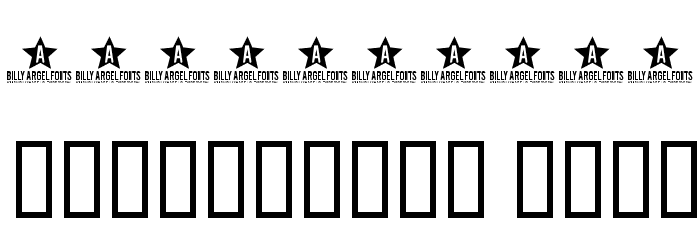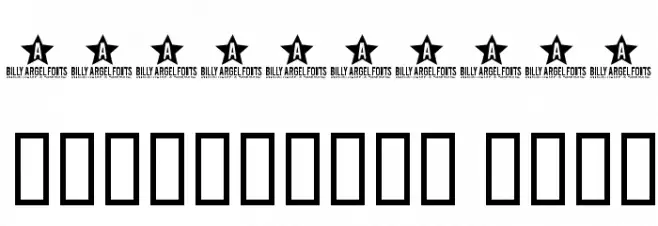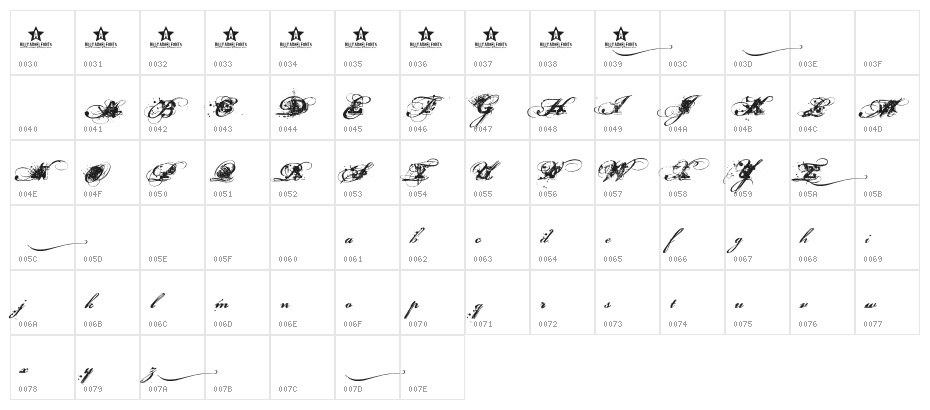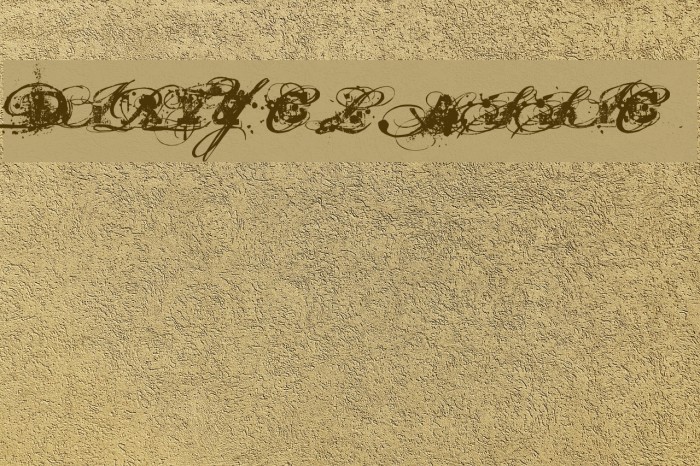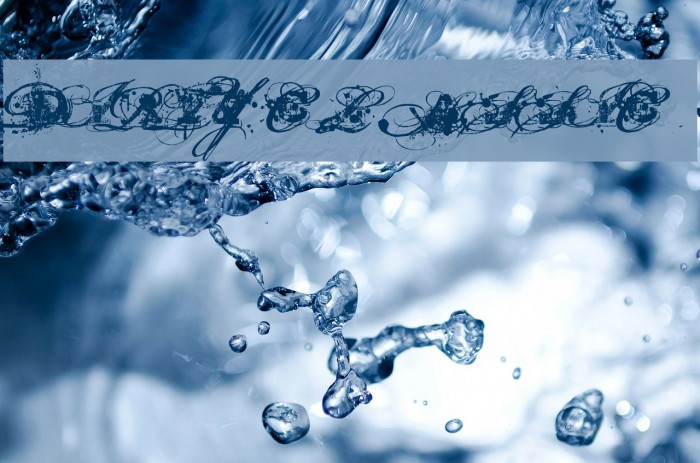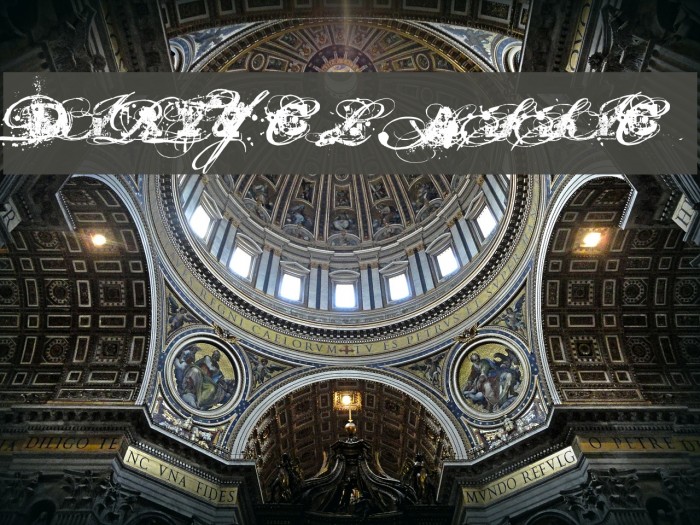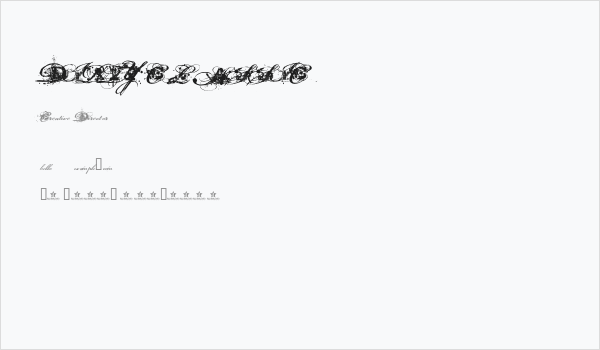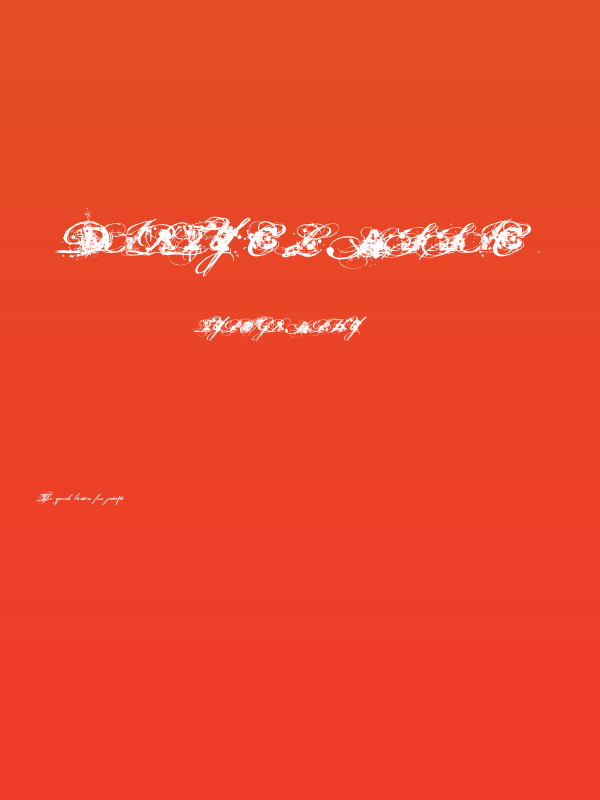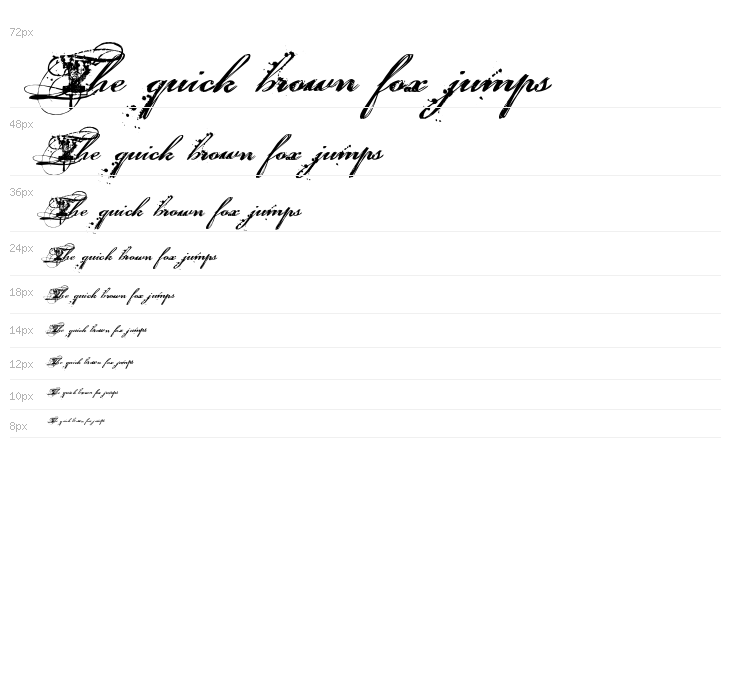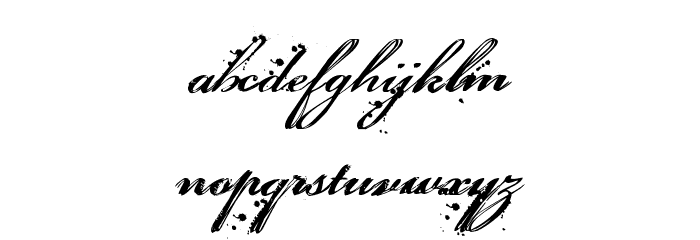
DIRTY CLASSIC Font
DIRTY CLASSIC Description
This font features a grungy, distressed style with an artistic flair. The uppercase letters are heavily stylized with splatters and swirls, creating a chaotic yet visually captivating appearance. The lowercase letters maintain a more traditional script style, offering a balance between readability and artistic expression. The numbers and special characters continue the theme with a bold and edgy look. This font is ideal for projects that require a raw, vintage aesthetic, such as album covers, posters, or branding for alternative or edgy brands.
| Overall Style | Vintage, Grunge, Artistic |
| Use Case | Logos, Posters, Headlines |
| Proposed Projects | Ideal for album covers, posters, edgy branding, and vintage-themed designs. |